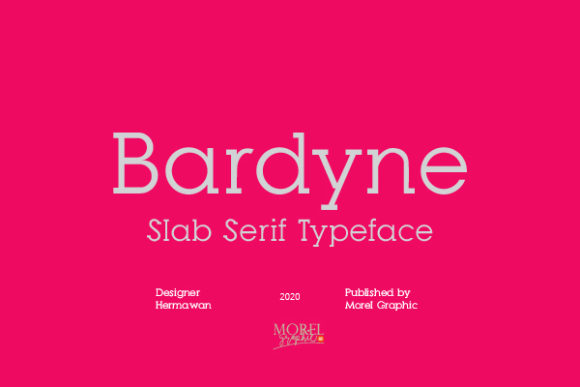
Welcome to the world of Bardyne Font, the ultimate slab serif font that embodies fun, quirkiness, and authenticity. Dive into a realm where creative ideas take center stage and transform into true standouts. Designed by the esteemed Moreltype, Bardyne Font is more than just a font; it's an expression of individuality and a catalyst for captivating designs.
With Bardyne Font, your words leap off the page, exuding personality and charm. Whether you're a seasoned designer, a creative entrepreneur, or simply someone seeking to make a statement, Bardyne Font is your perfect companion. Let your imagination run wild as you explore endless possibilities, from eye-catching logos to captivating social media posts and stunning website designs.
Unleash the power of Bardyne Font and watch your creative visions come to life. Embrace the unique blend of classic serif elegance and a playful, modern twist that sets Bardyne Font apart. Experience the joy of crafting designs that resonate with your audience, leaving a lasting impression that speaks volumes.